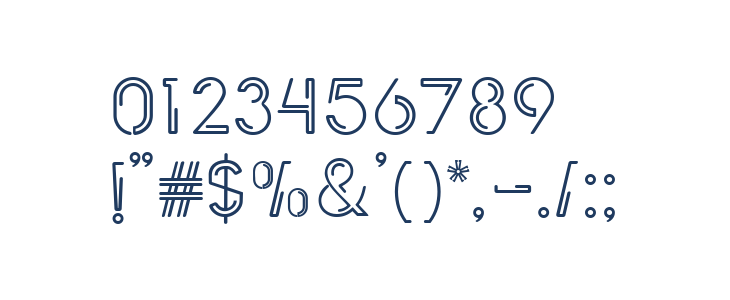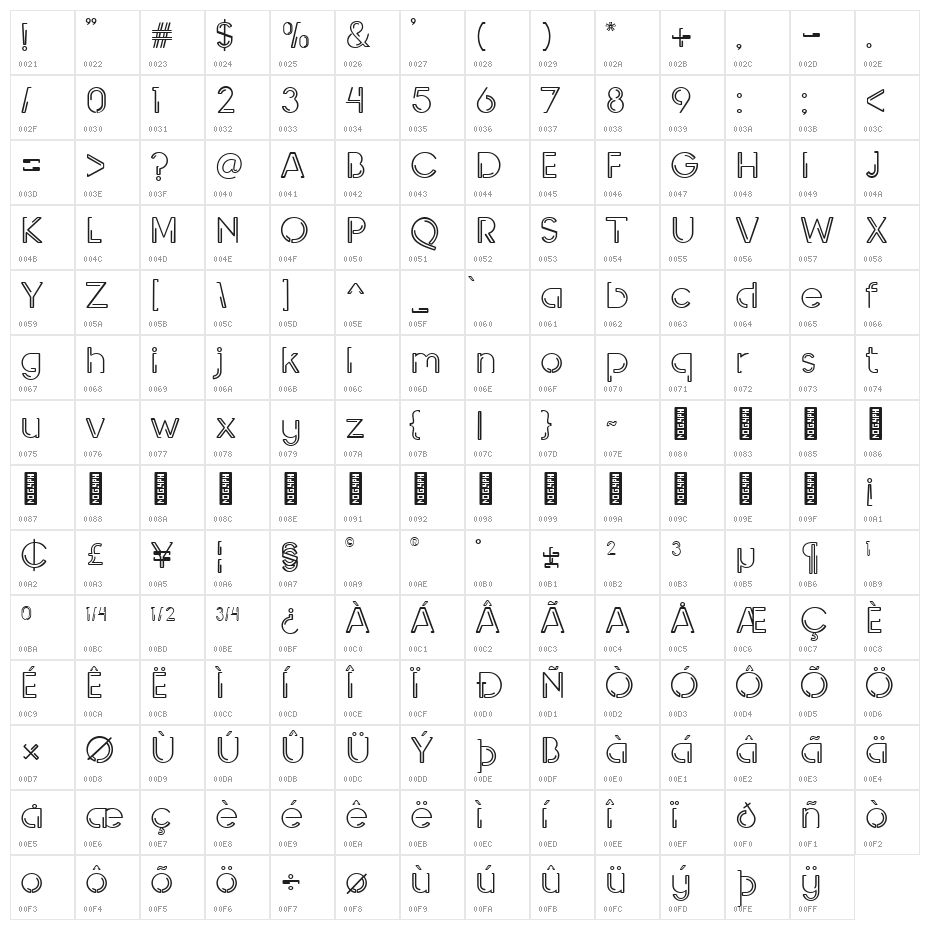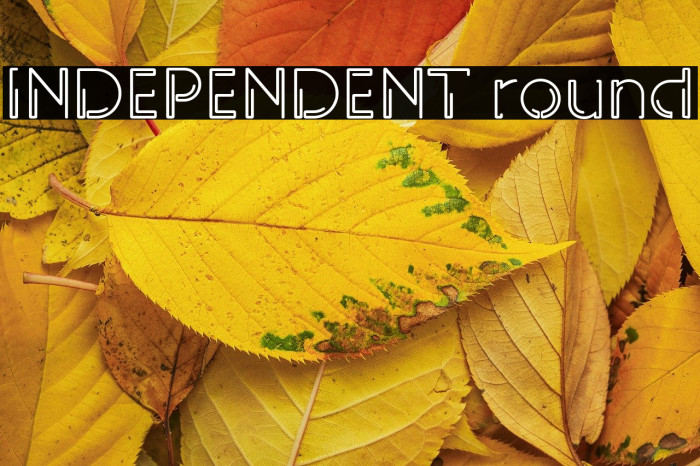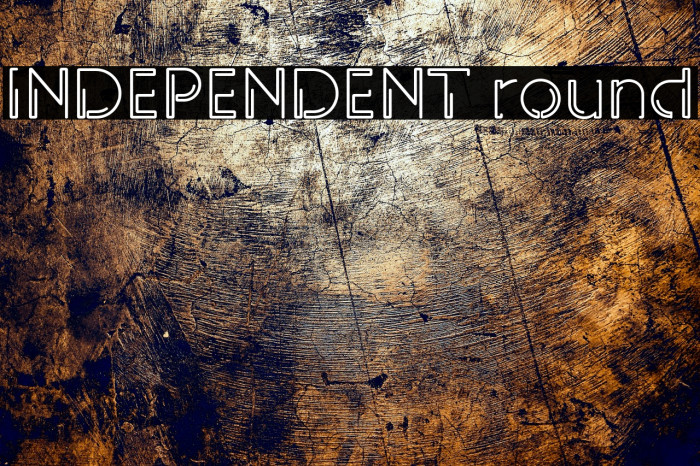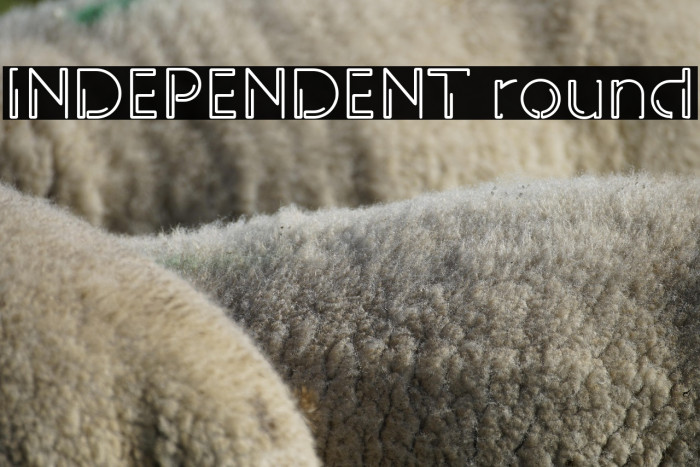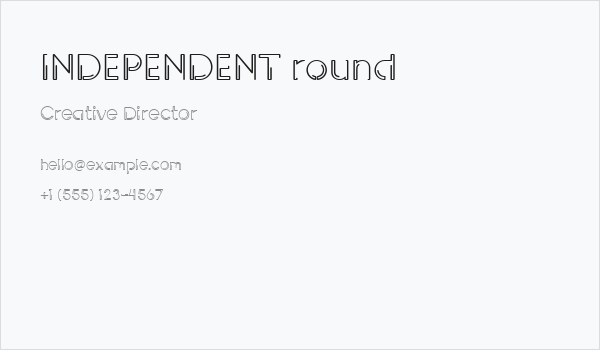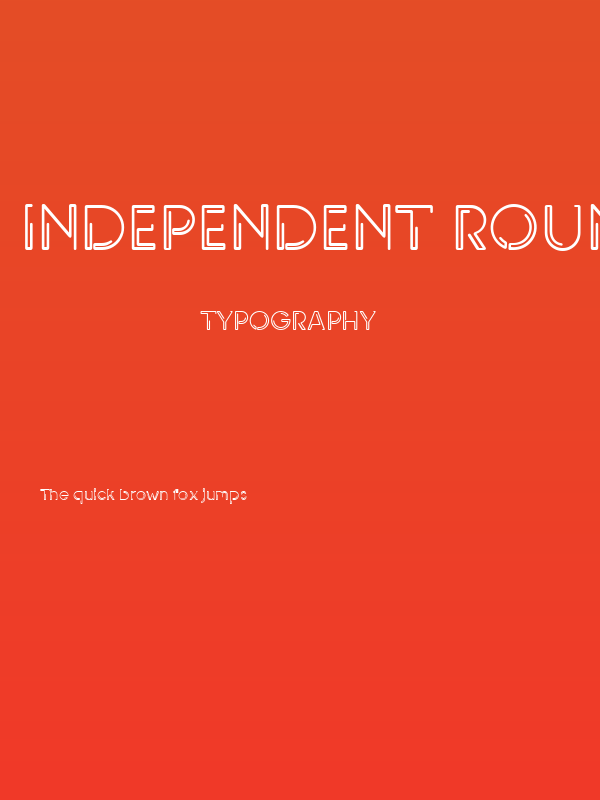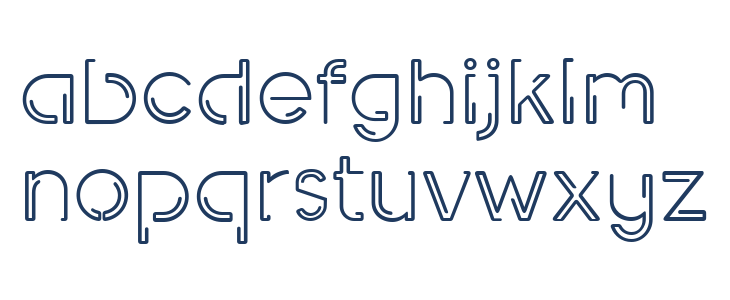
INDEPENDENT round Font
INDEPENDENT round Description
This font features a unique and modern design with a hollow, outlined style that gives it a distinct and eye-catching appearance. The uppercase and lowercase letters maintain a consistent geometric structure, while the numerals and special characters follow the same aesthetic, ensuring uniformity across all glyphs. The font's open and airy design makes it ideal for projects that require a contemporary and stylish look. Its clean lines and minimalistic approach lend themselves well to creative and artistic applications.